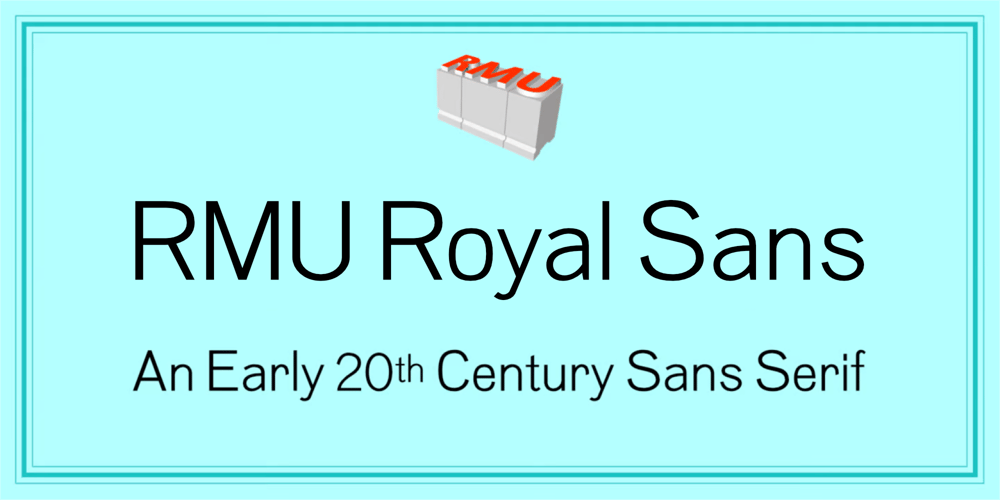
RMU Royal Sans Font Family was designed by Ralph M. Unger and published by RMU. RMU Royal Sans contains 1 styles and family package options. RMU Royal Sans is an early 20th century sans serif which was first released as Wotan by Wagner & Schmidt in 1914. The regular version is the most beautiful and characteristic of this family which contains several styles of different weights and widths.